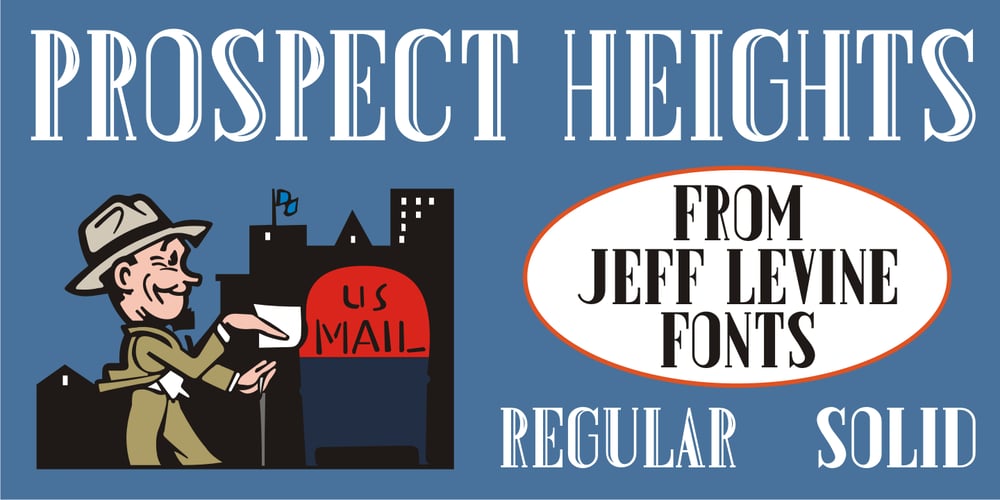
Prospect Heights JNL Font Family was designed by Jeff Levine and published by Jeff Levine. Prospect Heights JNL contains 2 styles and family package options. While the inspiration for Prospect Heights JNL may have been a piece of vintage sheet music entitled “My Ohio Lullaby”, the name is classically New York. To be precise, it’s a neighborhood in the Borough of Brooklyn. Prospect Heights JNL is available in both the regular version (with an engraving line) and a solid (plain) version.